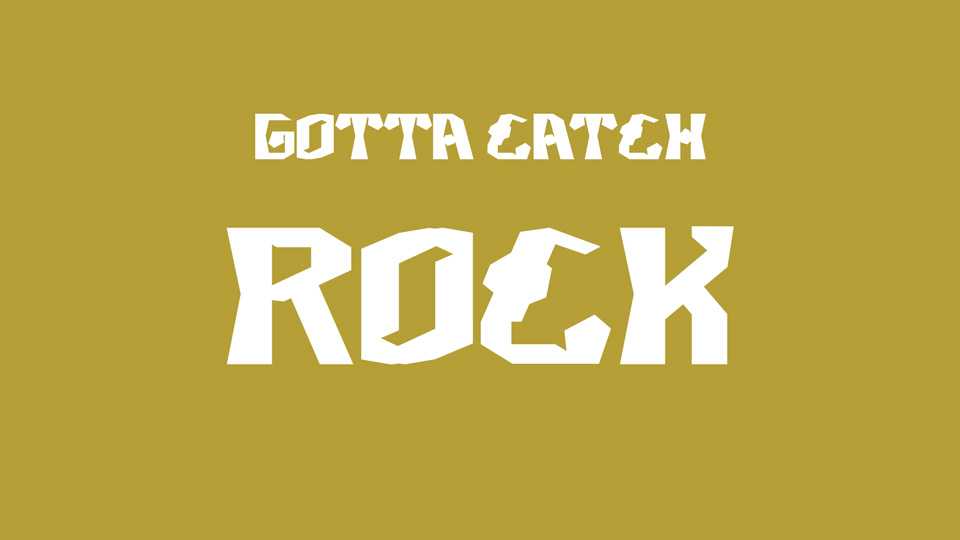
Download Gotta Catch Rock font, an experimental bold and solid handmade typeface designed during a type design initiation workshop given by Lucas Descroix in March 2021.
Designer: Laura François